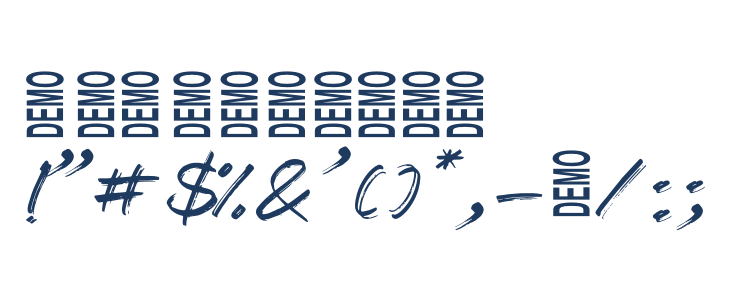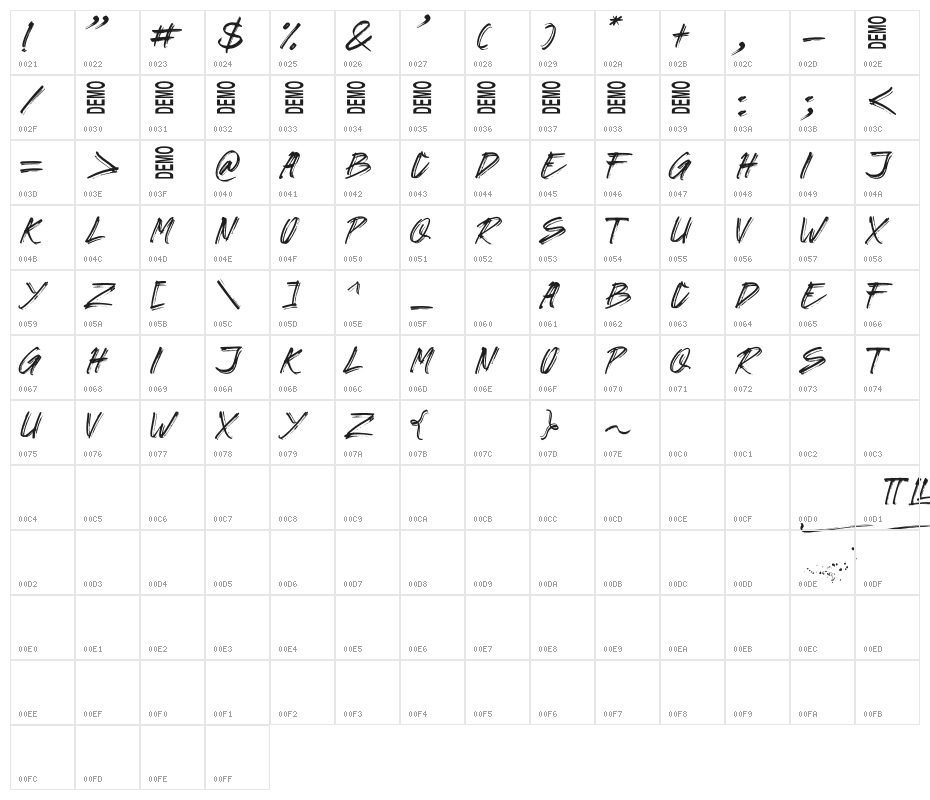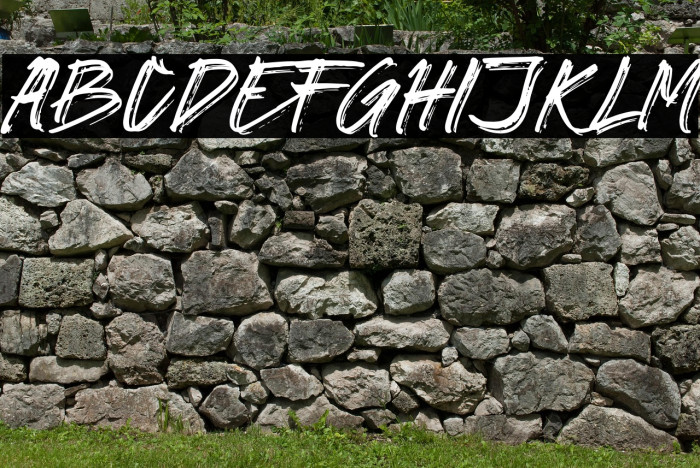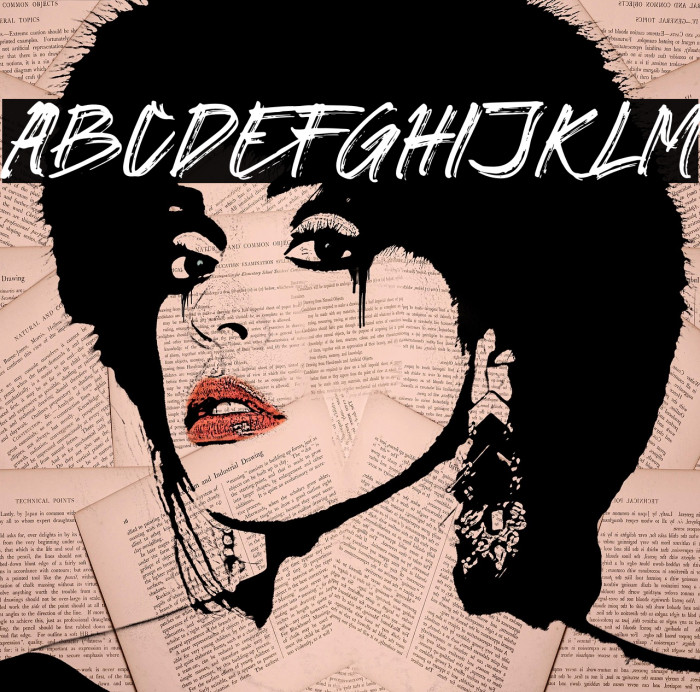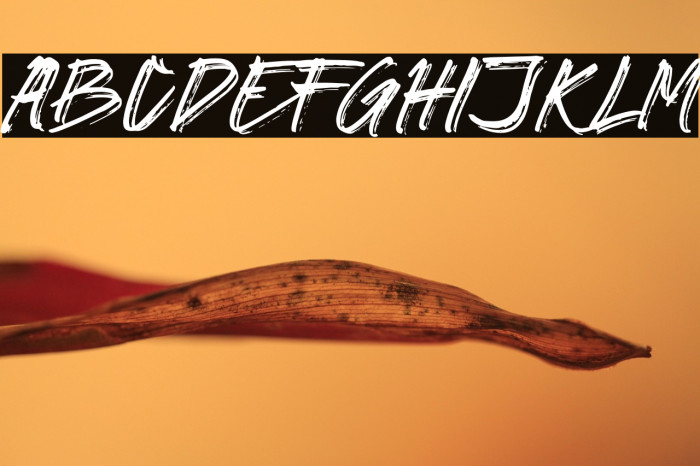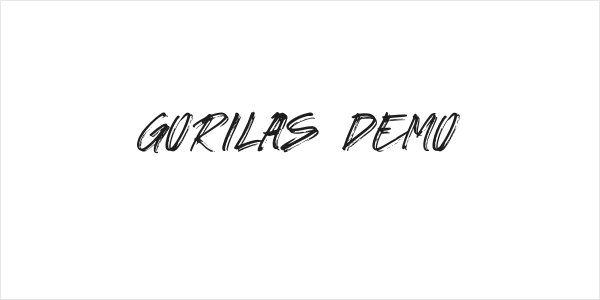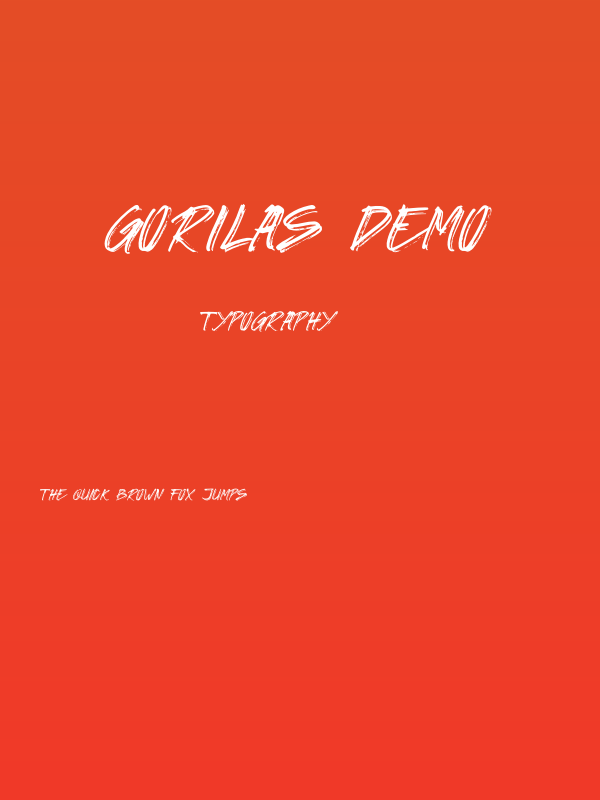
GORILAS Demo Font
GORILAS Demo Description
This font features a bold, energetic style with a brush-like texture that gives it a dynamic and expressive appearance. The uppercase and lowercase letters are crafted with a sense of movement, characterized by uneven strokes and a slightly rough edge, adding a raw, artistic feel. The numerals and special characters maintain this energetic style, ensuring consistency across all elements. The font's design is ideal for projects that require a strong visual impact, such as posters, headlines, and branding materials. Its unique style captures attention and conveys a sense of creativity and boldness.
| Proposed Projects | Ideal for posters, headlines, branding, and creative projects requiring a strong visual impact. |